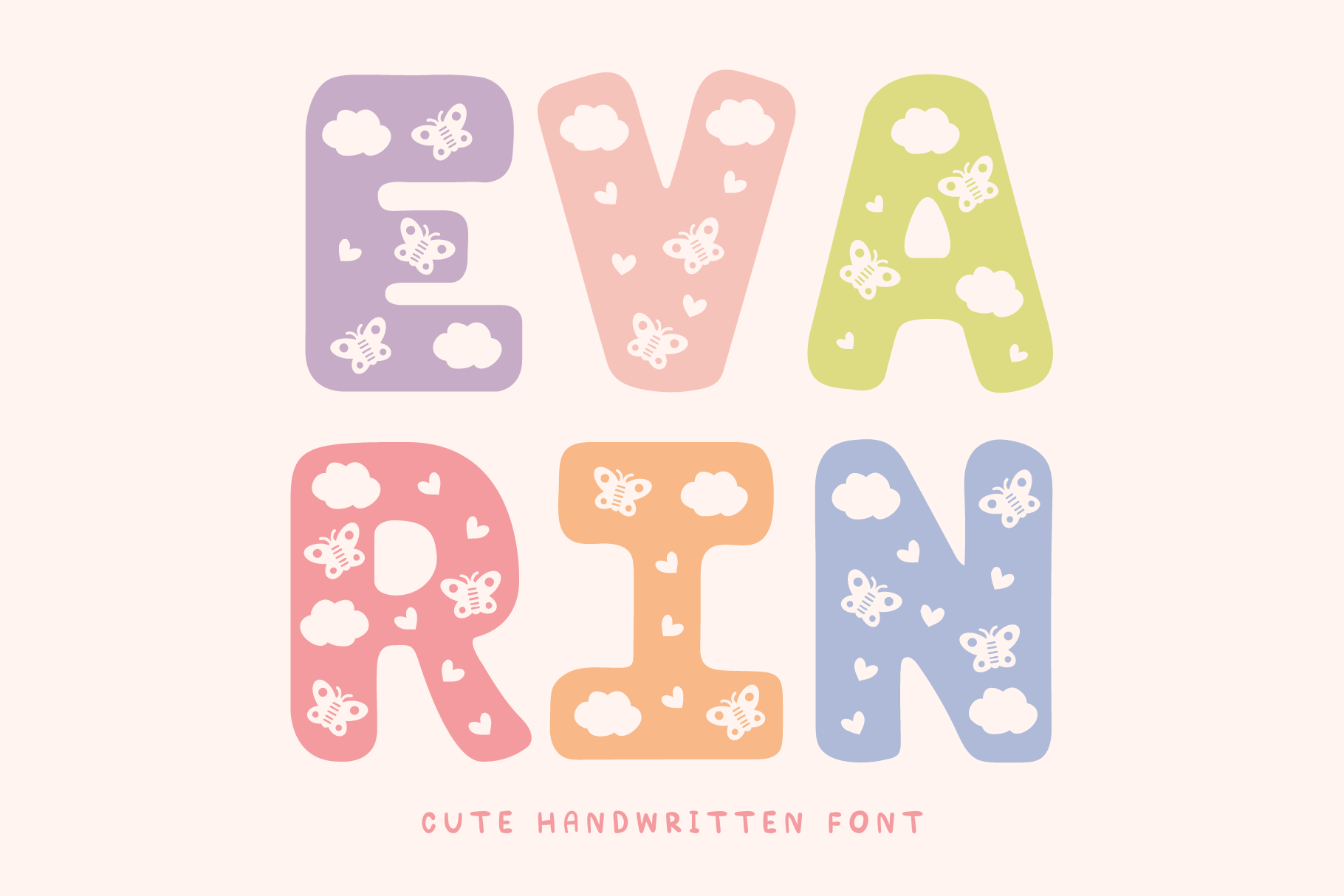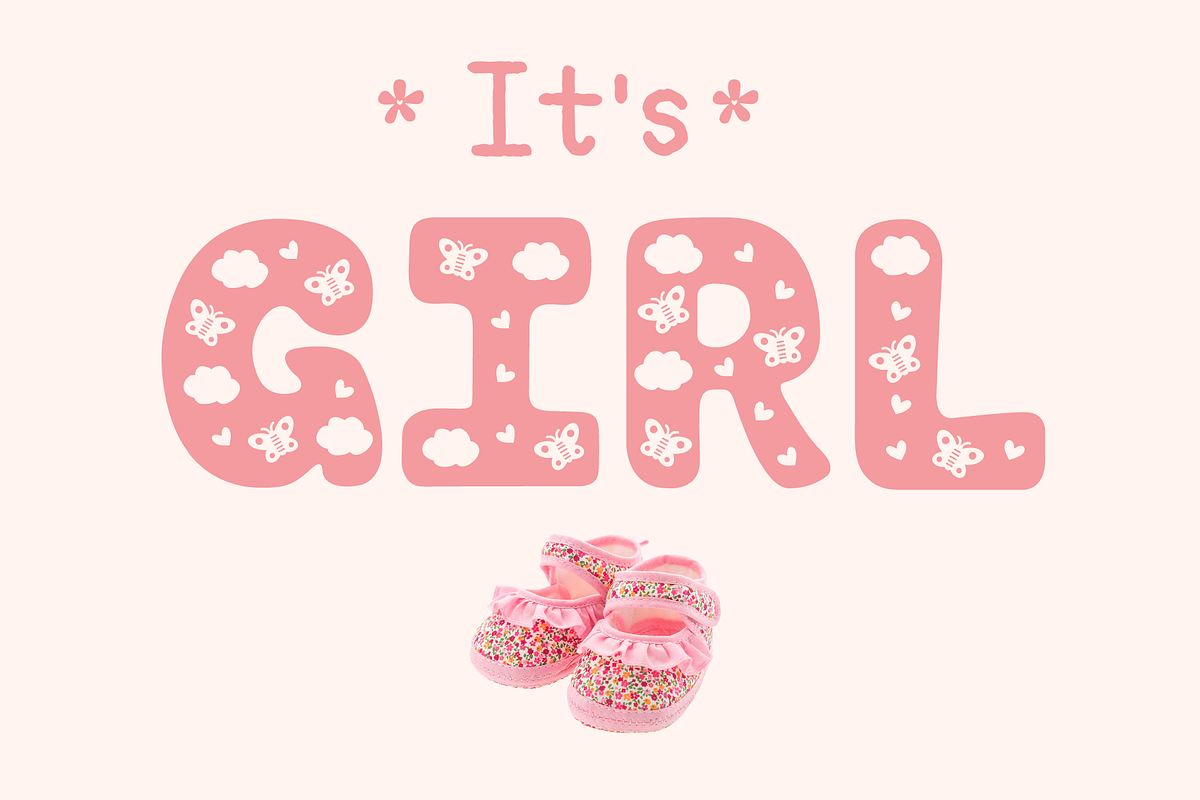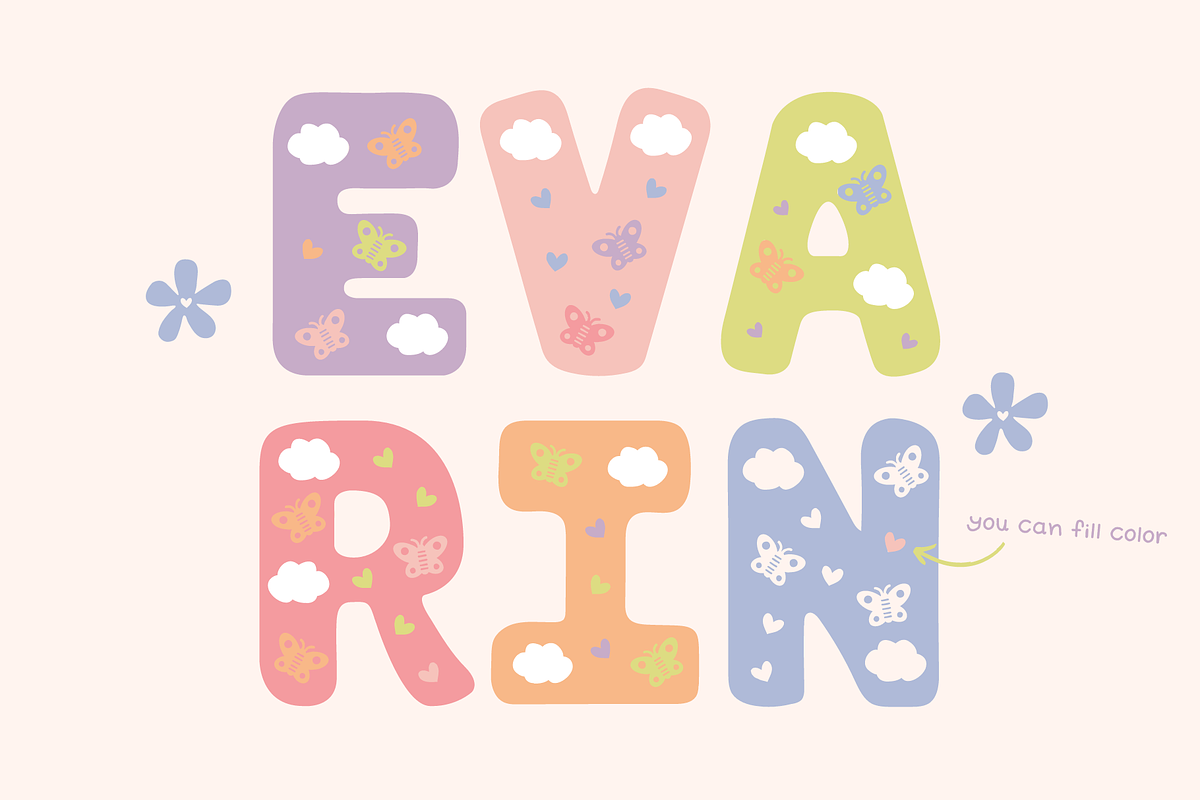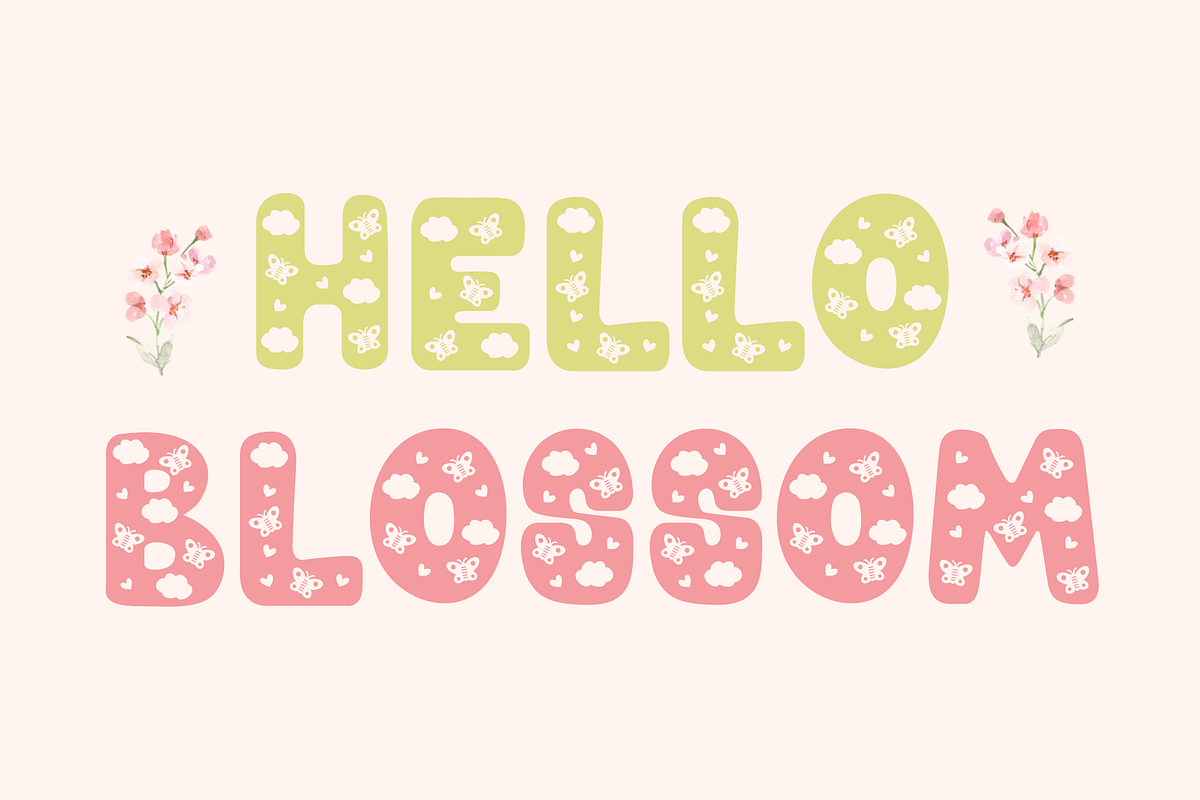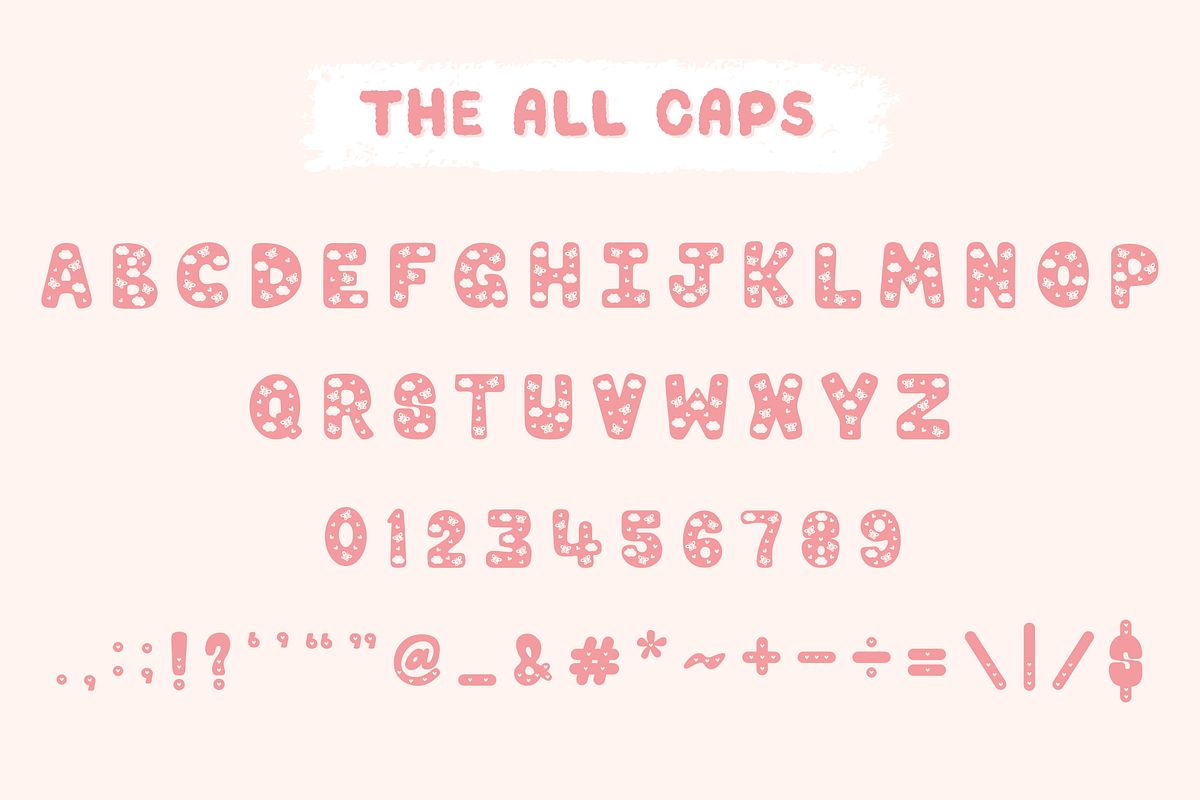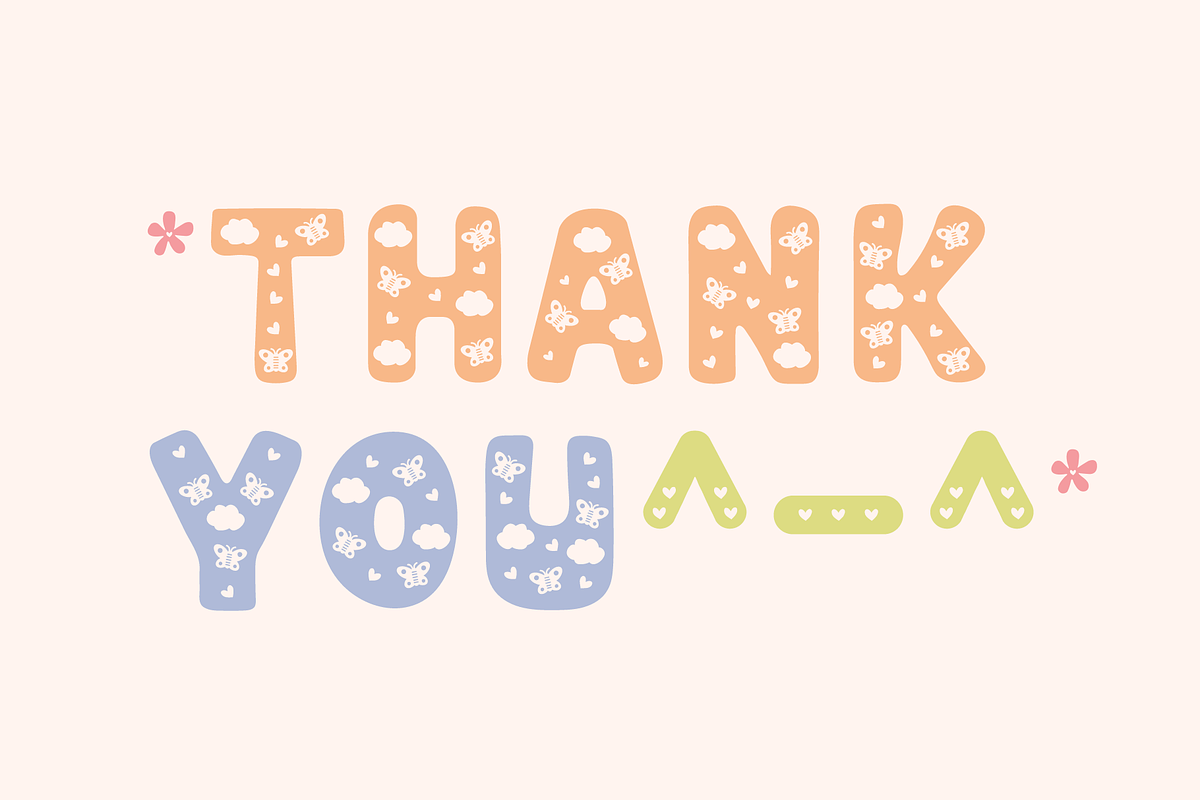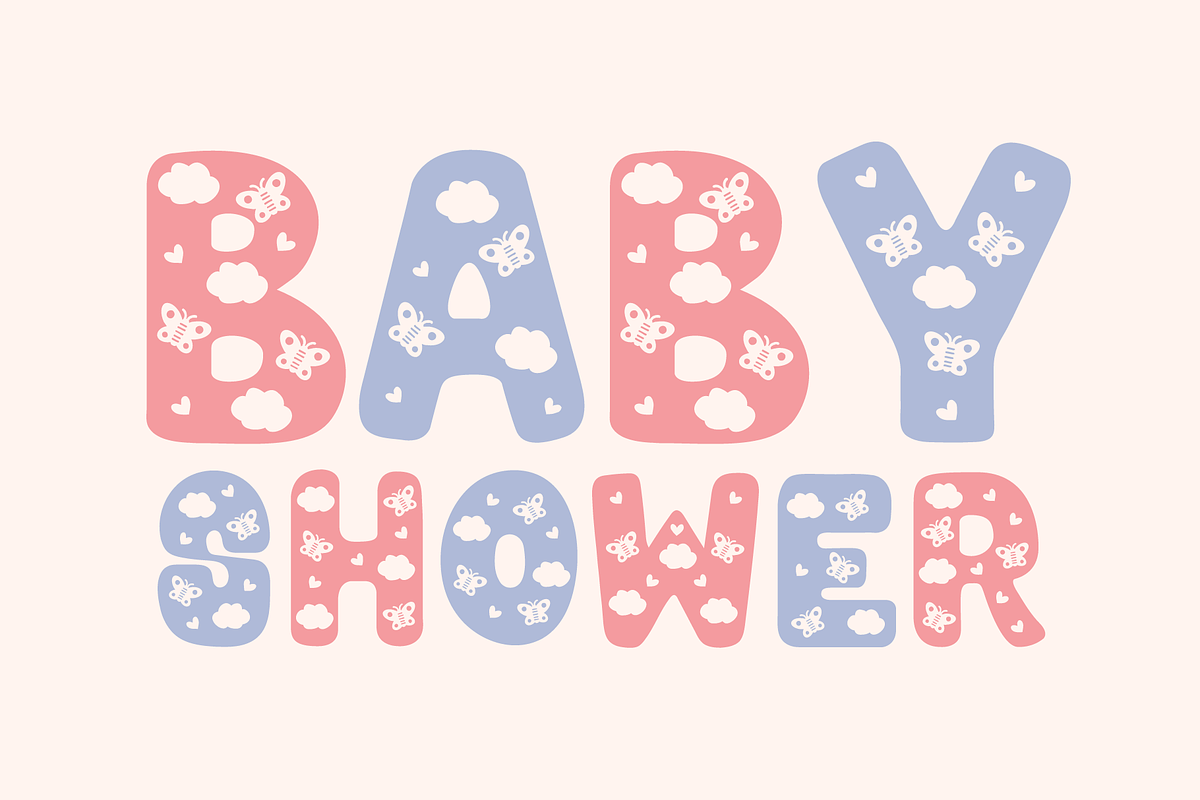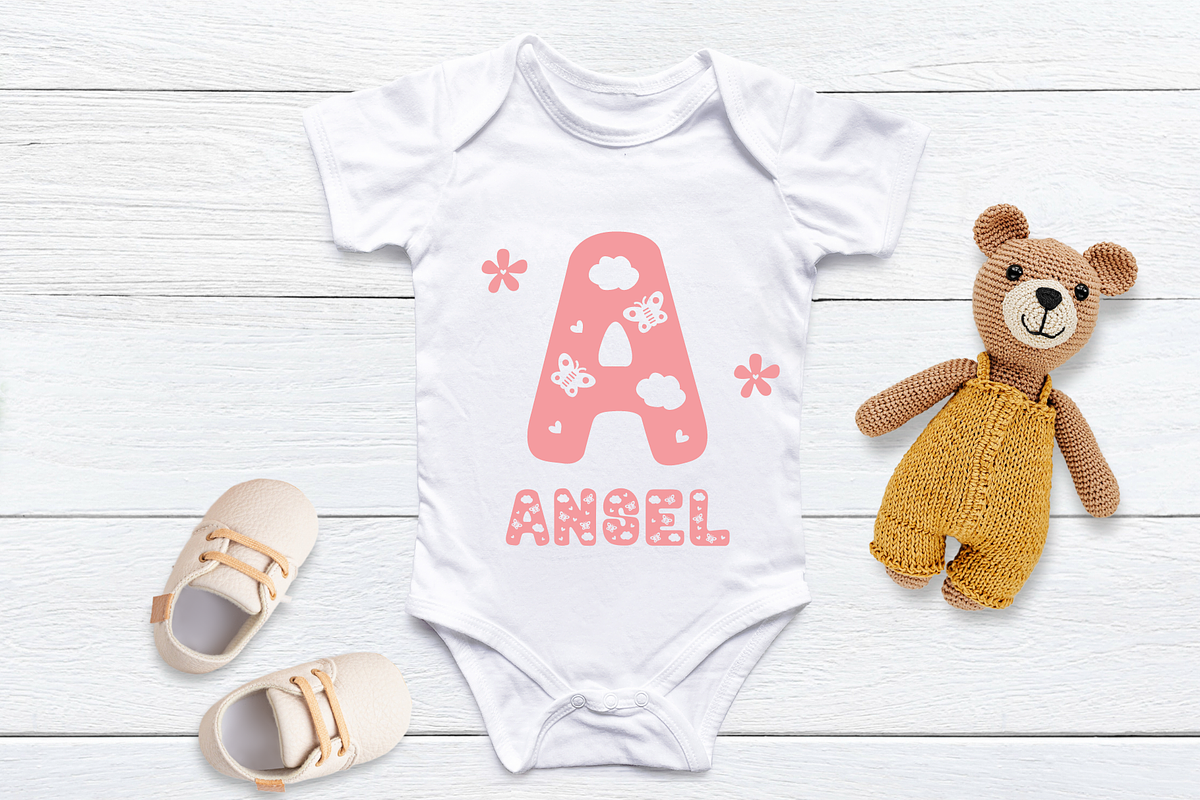
Evarin - Cute Decorative Font
Evarin is a cute handwritten and Decorative font featuring tiny and playful clouds, butterflies, and hearts that evoke a sense of charm and sweetness. This font will add a cute touch to your designs.